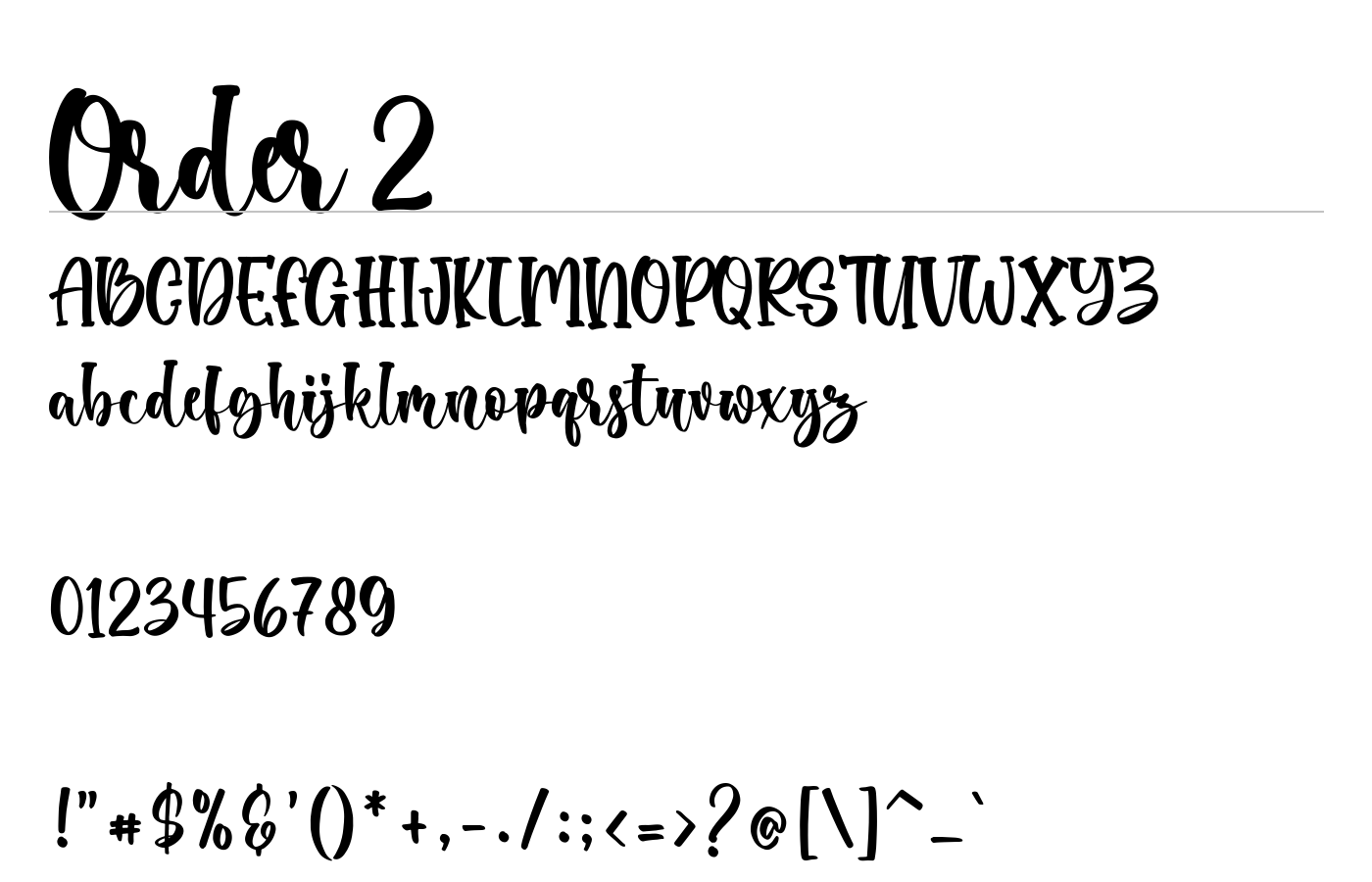
Order 2 is a playful and decorative script font with a lively, hand-drawn feel. Its bold, irregular strokes and quirky letterforms make it ideal for casual, creative uses such as invitations, branding, and headlines where a fun and personal touch is desired. This font brings an energetic, informal vibe that suits projects looking to stand out with personality and charm.
Order 2 Font
About Order 2 Font